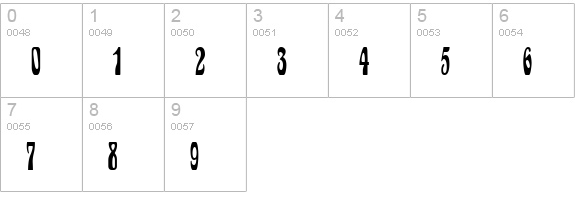
Epic Condensed Normal is the standard, neutral, condensed-width variant in the Epic typeface family \xE2\x80\x94 well suited to general body text, paragraphs, and standard typographic work.
Epic Condensed Normal font is a sleek and modern typeface that exudes sophistication and style. With its condensed letterforms and sharp edges, this font is perfect for creating impactful designs that demand attention. The versatility of Epic Condensed Normal makes it suitable for a wide range of projects, from branding to editorial design. And the best part? Epic Condensed Normal font is available for free download at FontsMarket.com. Take advantage of this fantastic offer and elevate your designs with this stunning typeface. Don't miss out on the opportunity to add this versatile font to your collection today!